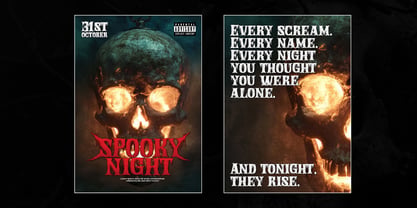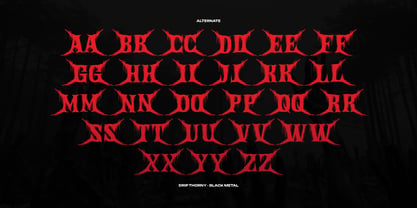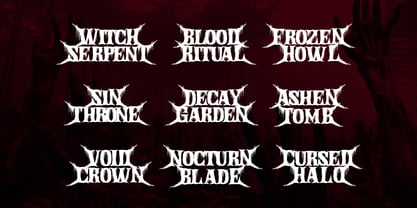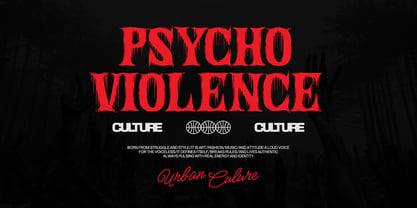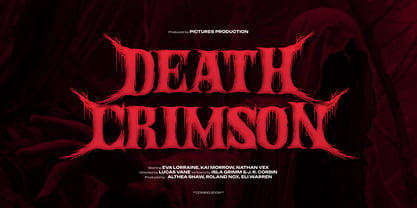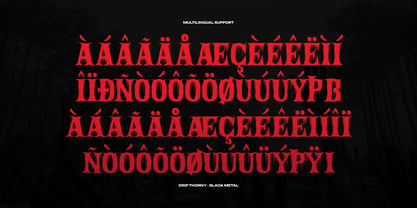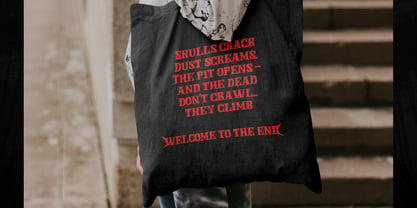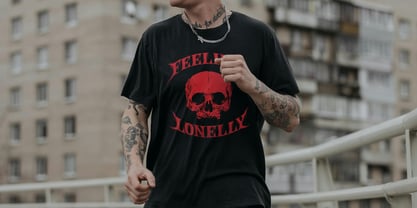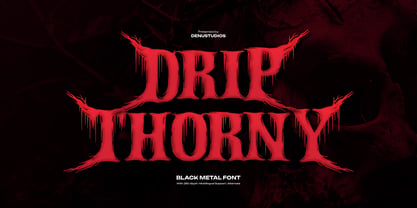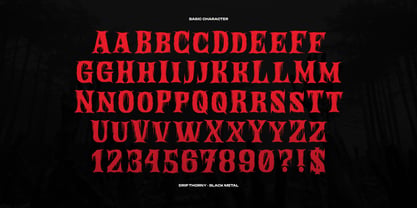
Drip Thorny
von Denustudio
Die Schriftfamilie Drip Thorny wurde von Dede Nugraha entworfen und von Denustudio veröffentlicht. Drip Thorny enthält 1 Stile. Mehr über diese Familie
Drip Thorny | Black Metal Font, from Denustudios, suitable for any projects such as: logos, branding projects, homeware designs, product packaging, mugs, quotes, posters, shopping bags, t-shirts, book covers, name card, invitation cards, greeting cards, label, photography, watermark, special events, and all your other lovely projects that need Black Metal Font a taste.
Designer: Dede Nugraha
Foundry: Denustudio